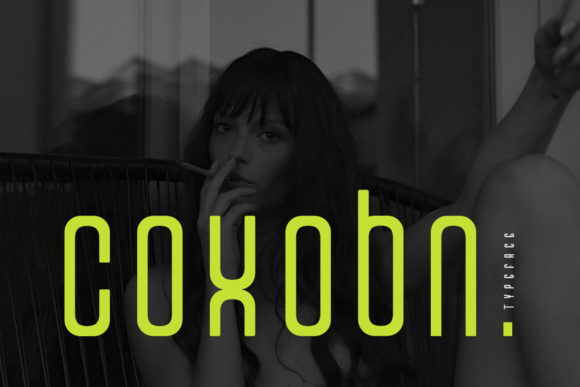
Introducing Coxobn Font: Elevate Your Designs with Elegance and Style
In the world of design, fonts play a crucial role in conveying the message and aesthetic of a project. For designers and crafters looking to add a touch of sophistication and elegance to their work, the Coxobn Font is an exceptional choice. This stylish and incredibly elegant sans serif font is versatile and can be used across various design projects, including thank you cards, quotes, greeting cards, logos, business cards, and more.
What Makes Coxobn Font Stand Out?
The Coxobn Font is distinguished by its clean and modern sans serif design. Its sleek lines and curves bring a level of sophistication that can elevate any design project. The font’s elegance is balanced with a high degree of legibility, making it suitable for both digital and print designs. Whether you’re working on a professional project or a personal craft, Coxobn Font can add that extra creative touch that sets your work apart.
One of the key advantages of the Coxobn Font is its versatility. Its neutral yet stylish appearance allows it to seamlessly integrate into various design contexts. Here are some of the areas where Coxobn Font can make a significant impact:
- Thank You Cards: Add a personal and elegant touch to your thank you cards, making them memorable for the recipients.
- Quotes: Elevate inspirational and motivational quotes with a font that complements the message without overpowering it.
- Greeting Cards: From birthday wishes to holiday greetings, Coxobn Font can add a stylish flair to your cards.
- Logos: For businesses looking for a modern and elegant logo, Coxobn Font can be a great choice, conveying professionalism and sophistication.
- Business Cards: Stand out in professional settings with business cards that feature a clean, elegant, and highly legible font.
Tips for Using Coxobn Font
To maximize the potential of the Coxobn Font in your designs, consider the following tips:
- Pair with Complementary Fonts: While Coxobn Font is versatile on its own, pairing it with complementary fonts can add depth and interest to your designs.
- Experiment with Sizes and Weights: Don’t be afraid to experiment with different sizes and weights of the Coxobn Font to create visual hierarchy and emphasize key messages.
- Consider Color Choices: The elegance of Coxobn Font can be further enhanced with thoughtful color choices that align with the mood and brand identity of your project.
The Coxobn Font is a valuable addition to any designer’s or crafter’s toolkit. Its elegant sans serif design, versatility, and legibility make it an excellent choice for a wide range of projects. By incorporating Coxobn Font into your designs, you can add a touch of sophistication and style that elevates your work. Whether you’re creating professional documents, personal crafts, or anything in between, Coxobn Font is sure to make your designs stand out.
In conclusion, Coxobn Font offers designers and crafters a stylish, elegant, and versatile typographic solution for a variety of projects. Its ability to bring a creative touch to thank you cards, quotes, greeting cards, logos, business cards, and more makes it a valuable resource for anyone looking to enhance their designs with a modern sans serif font.